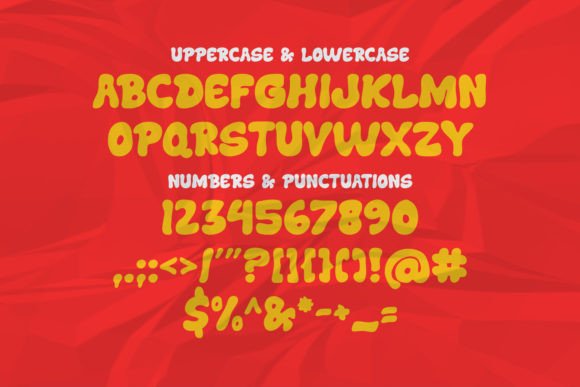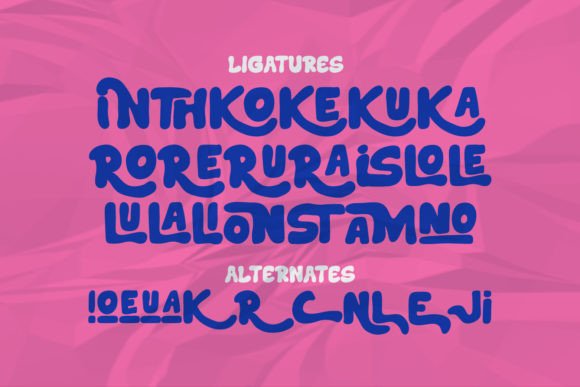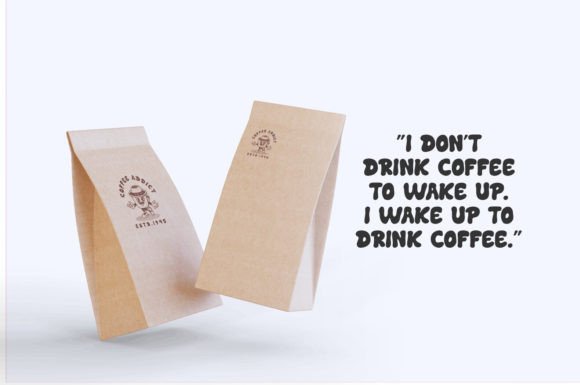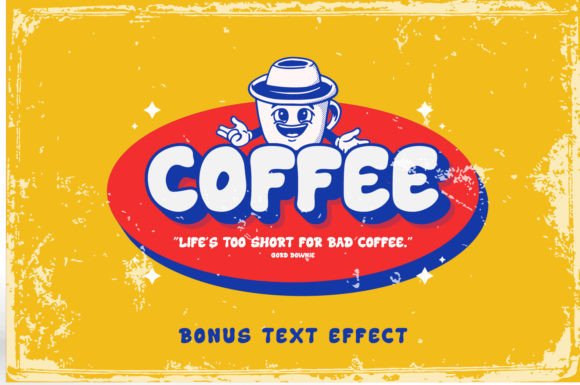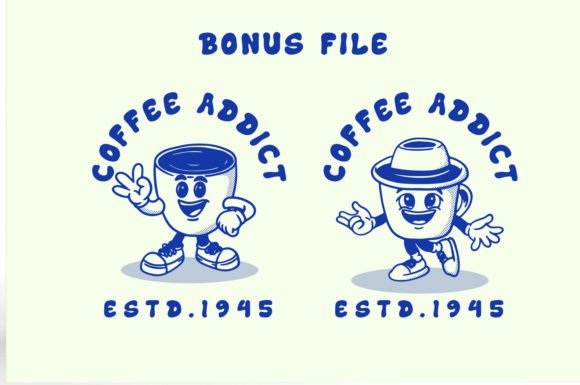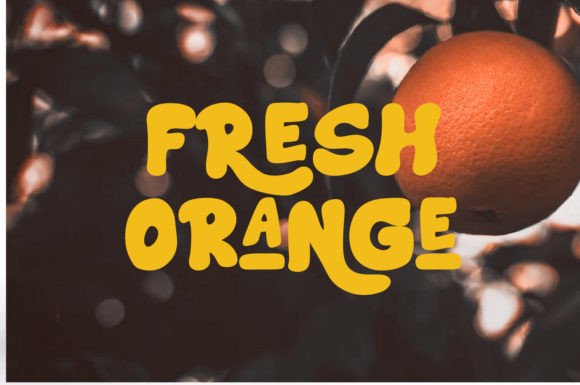
Ginkob Retro Playful Font: Elevate Your Designs with a Touch of Nostalgia
Are you on the hunt for a font that adds a dash of playfulness and nostalgia to your designs? Look no further than the Ginkob Retro Playful Font. This all-capital font is perfect for designers and crafters seeking to infuse their projects with a unique and eye-catching flair. In this article, we’ll dive into the features and benefits of the Ginkob Font, and explore how it can elevate your designs across various mediums.
What is Ginkob Font?
Ginkob Font is a carefully crafted, all-capital font designed to bring a touch of retro charm to your designs. Its playful and whimsical nature makes it an ideal choice for projects that require a bit of personality. Whether you’re working on headings, flyers, greeting cards, product packaging, book covers, printed quotes, logotypes, apparel designs, or album covers, Ginkob Font is the perfect companion.
Key Features of Ginkob Font
- All-Capital Font: Ginkob Font is an all-capital font, making it perfect for headlines, titles, and emphasis.
- Retro Playful Style: The font boasts a unique retro playful style that adds a touch of nostalgia to your designs.
- Ligatures, Numerals, and Punctuations: The font includes ligatures, numerals, and punctuations, providing you with a wide range of design possibilities.
Benefits of Using Ginkob Font
So, why choose Ginkob Font for your design projects? Here are just a few benefits:
- Adds Personality to Your Designs: Ginkob Font’s playful and retro style adds a unique personality to your designs, setting them apart from the crowd.
- Versatile: The font’s versatility makes it suitable for a wide range of design projects, from print materials to digital applications.
- High-Quality Design: The font is designed with high-quality craftsmanship, ensuring that your designs look professional and polished.
Design Ideas with Ginkob Font
Now that we’ve explored the features and benefits of Ginkob Font, let’s dive into some design ideas to get you started:
- Headings and Titles: Use Ginkob Font to create eye-catching headings and titles for your blog posts, articles, and website content.
- Flyers and Brochures: Add a touch of playfulness to your flyers and brochures with Ginkob Font, making them stand out from the competition.
- Greeting Cards: Create unique and personalized greeting cards for special occasions using Ginkob Font.
- Product Packaging: Elevate your product packaging with Ginkob Font, adding a touch of nostalgia and whimsy to your brand.
- Book Covers: Use Ginkob Font to create eye-catching book covers that grab attention and convey the tone of your story.
- Experiment with Colors: Ginkob Font looks great in bold, bright colors. Experiment with different color combinations to find the perfect fit for your design.
- Mix and Match Fonts: Combine Ginkob Font with other fonts to create a unique and visually appealing design.
- Pay Attention to Kerning: Adjust the kerning of Ginkob Font to ensure that your text looks balanced and visually appealing.
In conclusion, Ginkob Retro Playful Font is a versatile and eye-catching font that’s perfect for designers and crafters seeking to add a touch of nostalgia and playfulness to their designs. With its all-capital design, retro playful style, and compatibility with popular design software, Ginkob Font is an excellent choice for a wide range of design projects. Whether you’re working on headings, flyers, greeting cards, product packaging, book covers, or more, Ginkob Font is sure to elevate your designs and make them stand out from the crowd.